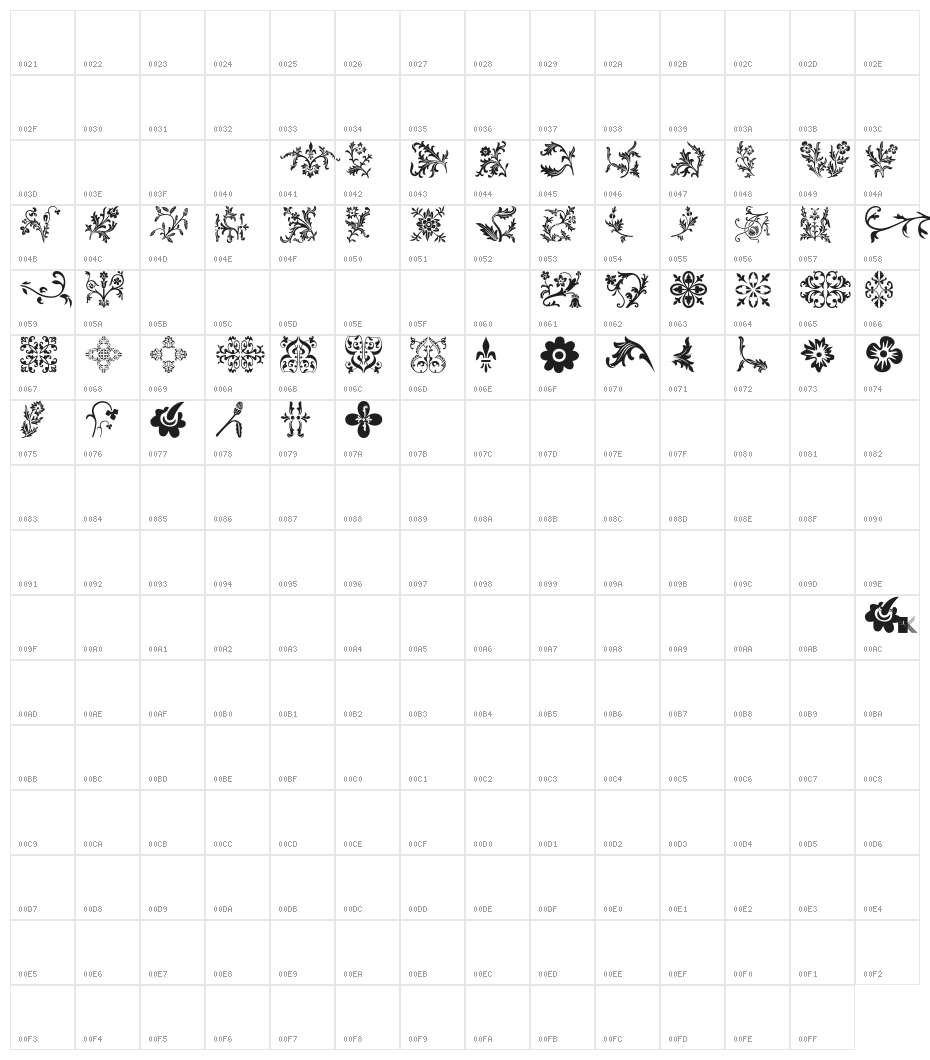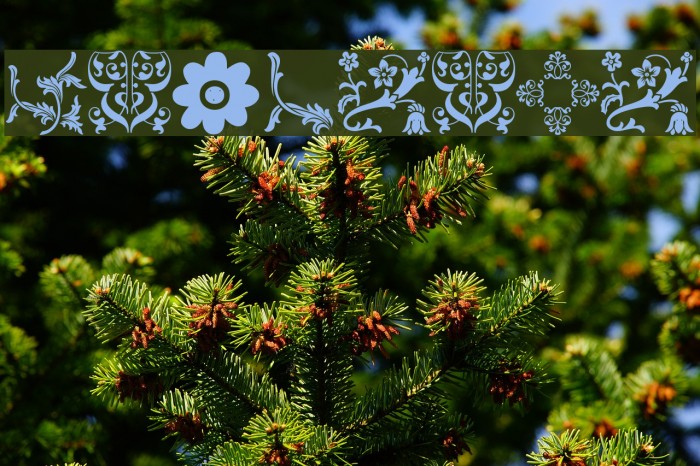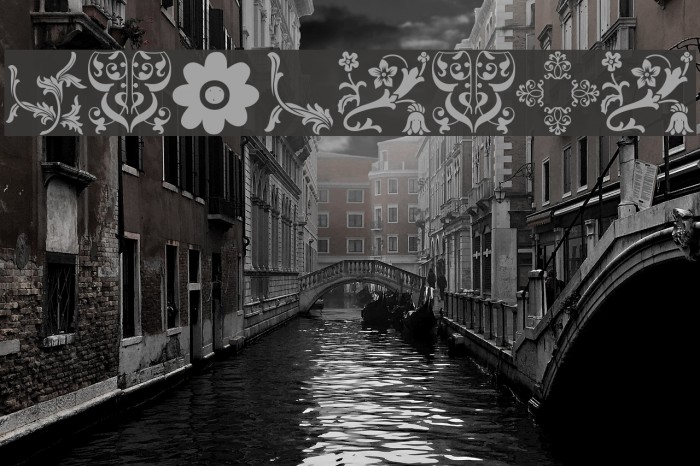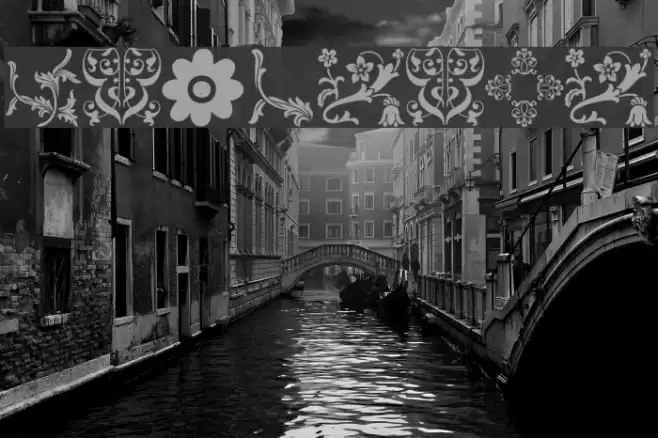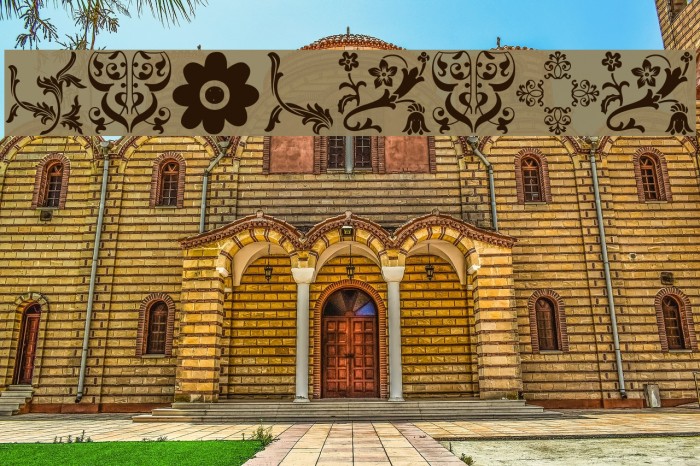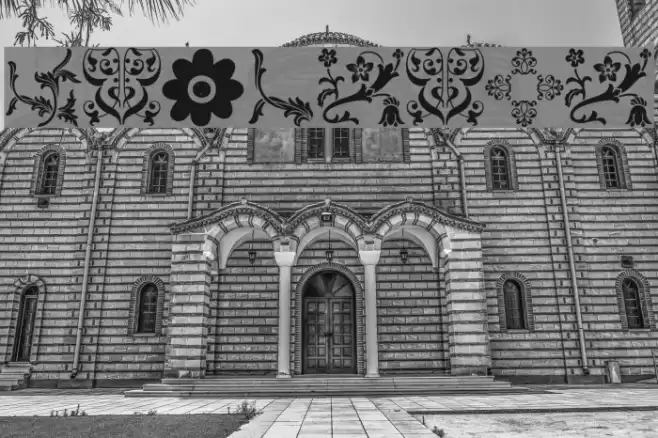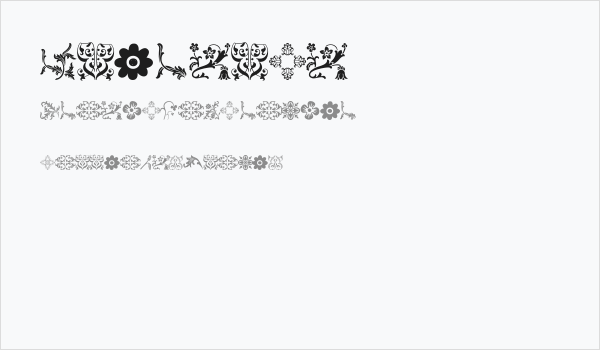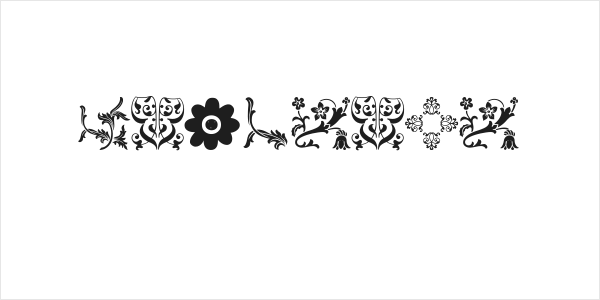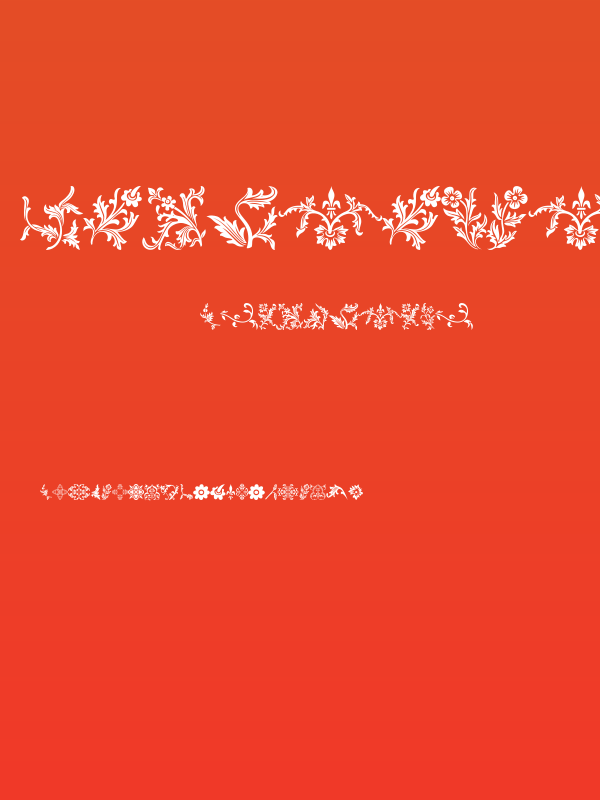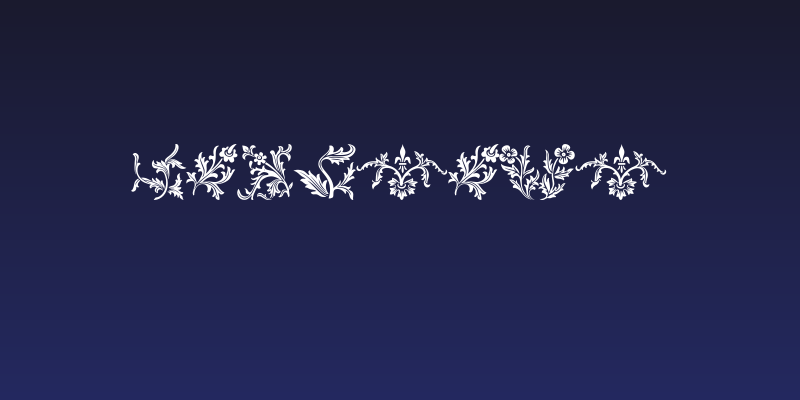
Floralia Font
Floralia Description
A decorative dingbat font featuring intricate floral and botanical motifs, with each character represented by a unique ornamental design rather than standard alphanumeric glyphs.
| Overall Style | Decorative, Vintage |
| Use Case | Borders, embellishments, decorative accents |
| Proposed Projects | Wedding invitations, decorative borders, scrapbooking, greeting cards, vintage-style posters. |